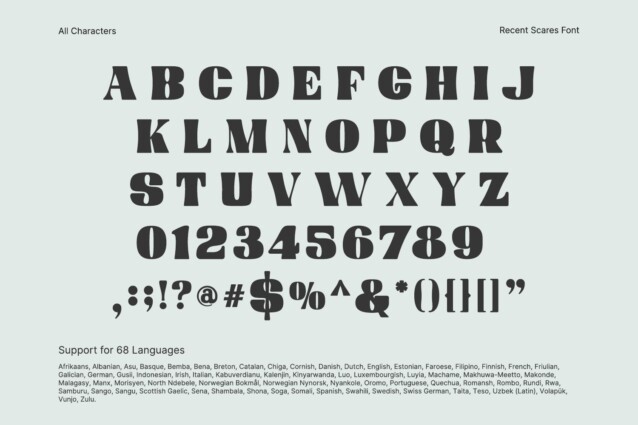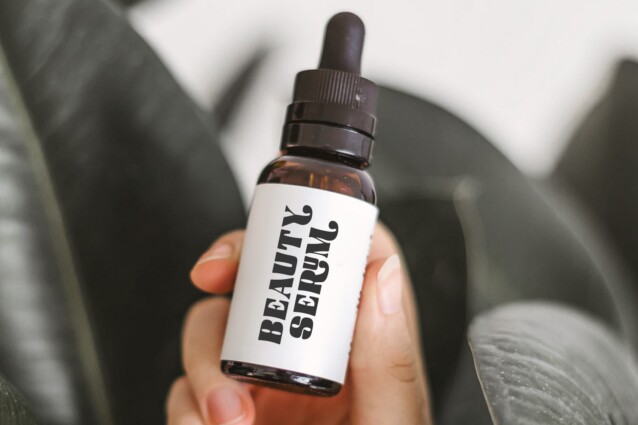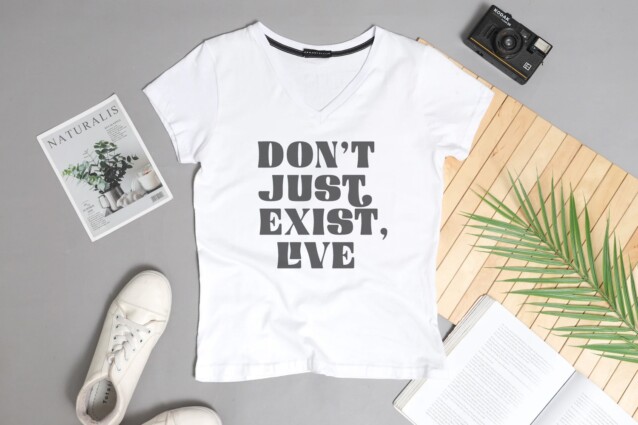
Recent Secret Font is a retro groovy display font manufactured by Din Studio. With its bold weight and contemporary flair, this font captures attention and makes a bold statement in any design application.
Crafted with clean lines and sharp angles, Fresh Tasty exudes confidence and sophistication. Each letter is meticulously designed to convey a sense of modernity and style, while still retaining the timeless elegance of serif typography. Despite its bold weight, Fresh Tasty maintains a sense of versatility and adaptability. In addition, enjoy the features here.